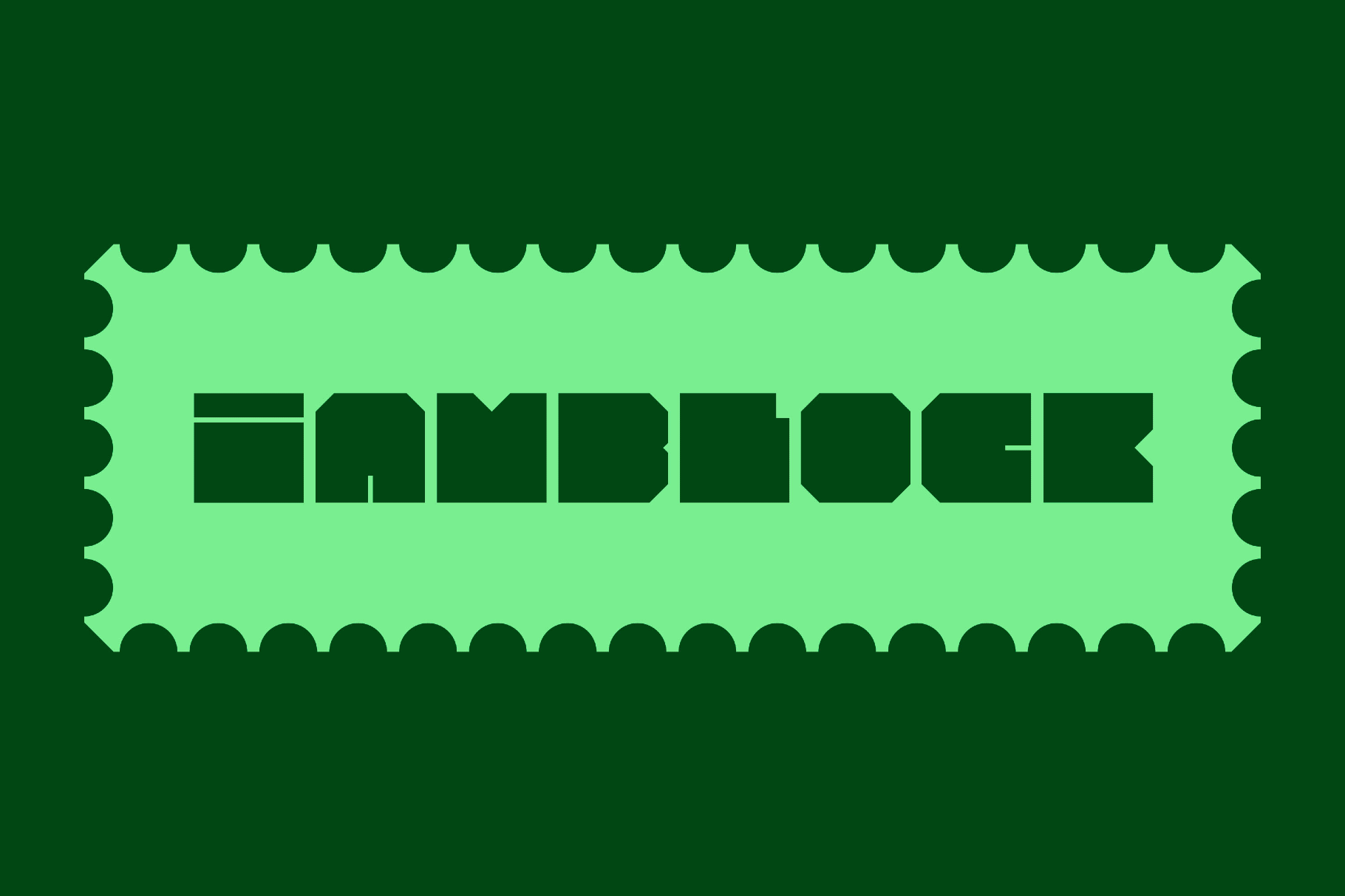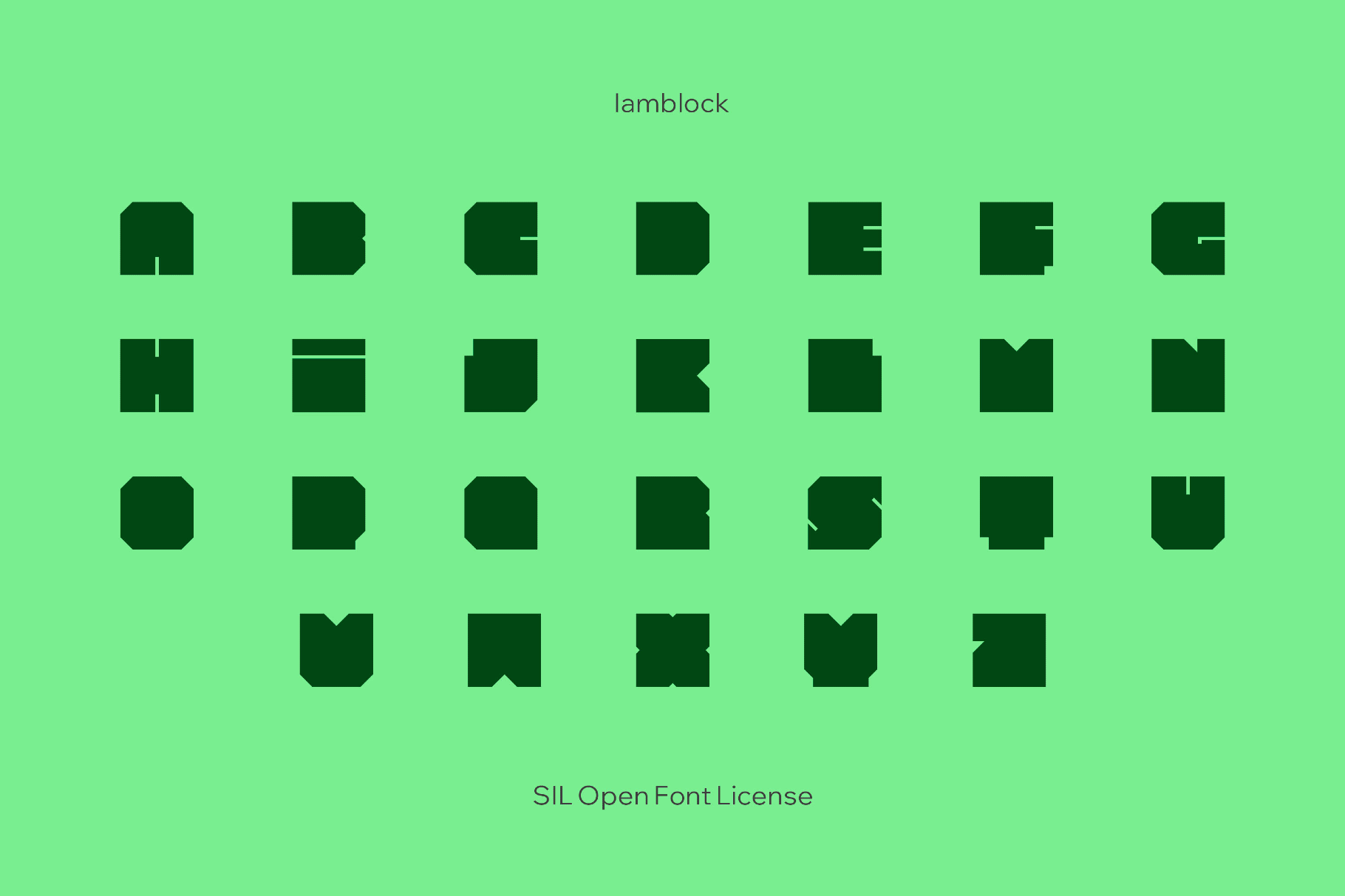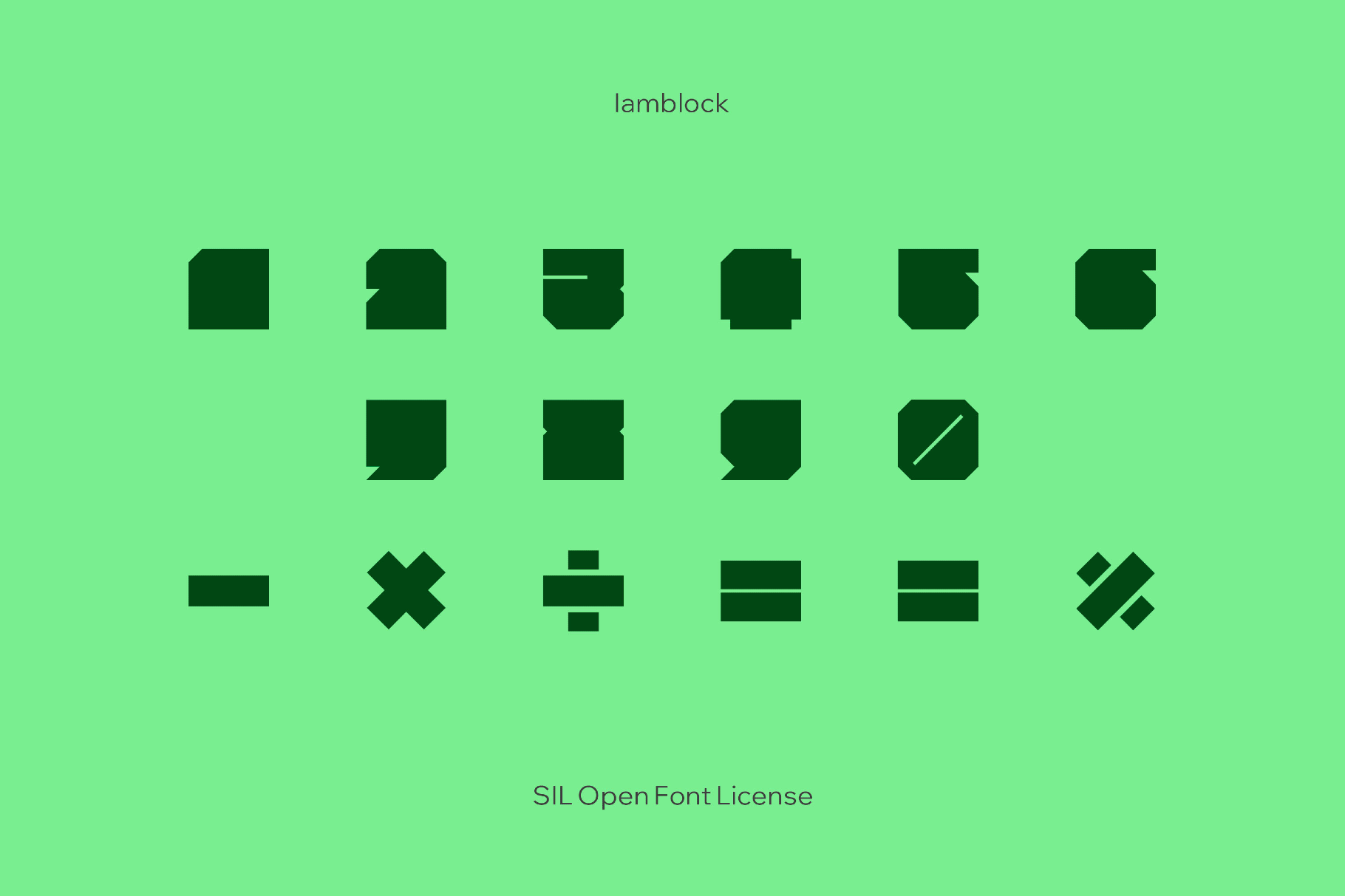
Iamblock
Iamblock is a monolithic, super-heavy font that echoes Brutalist signage and the chunky logic of early bitmap interfaces. Its letters sit on a tight grid with uniform widths and blunt corners and create a square geometry. This typeface works best for poster headlines, tech and gaming branding, tracklists, logo wordmarks, merch designs, editorial covers, packaging callouts, UI titling, and social graphics.